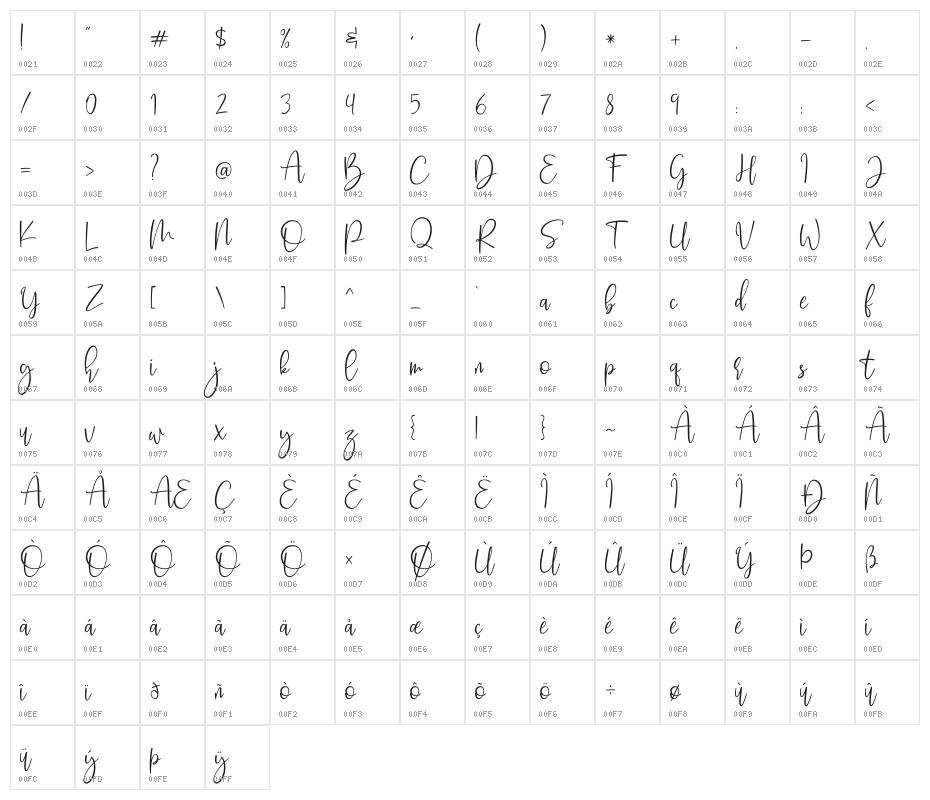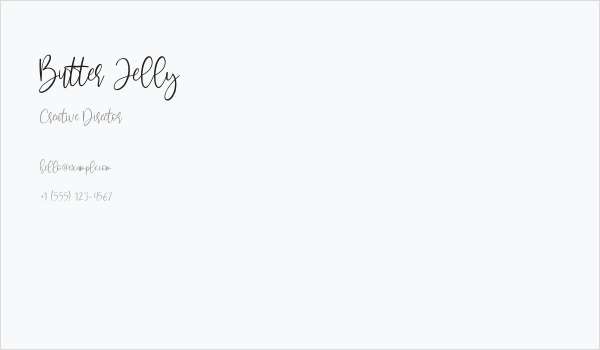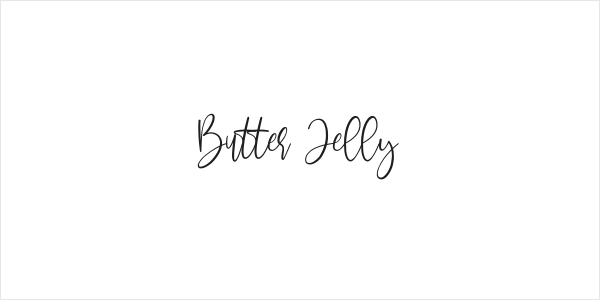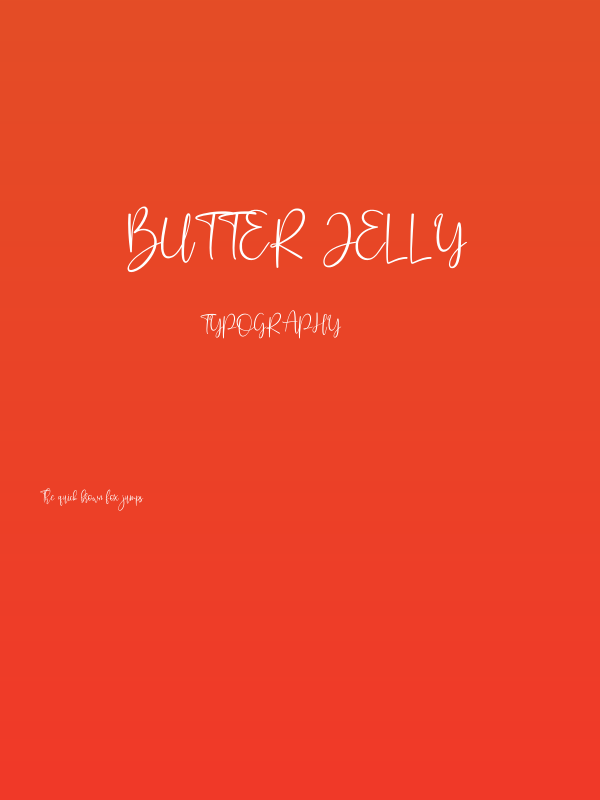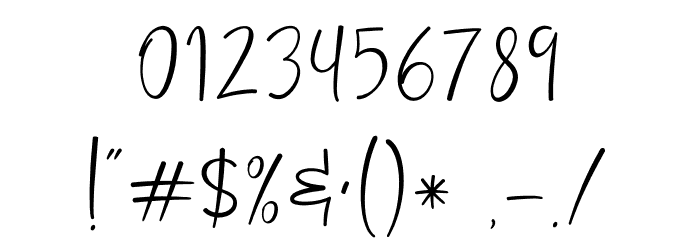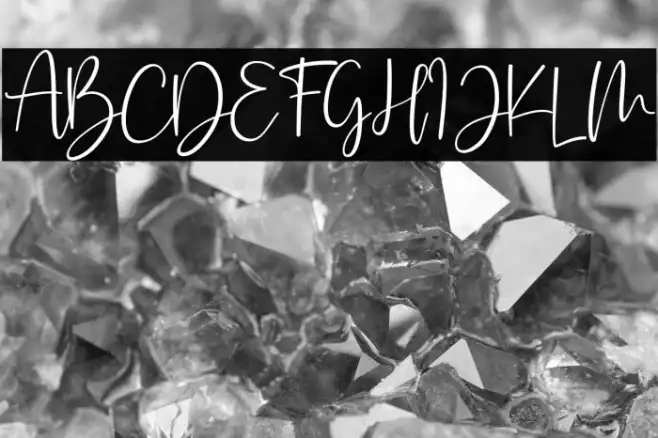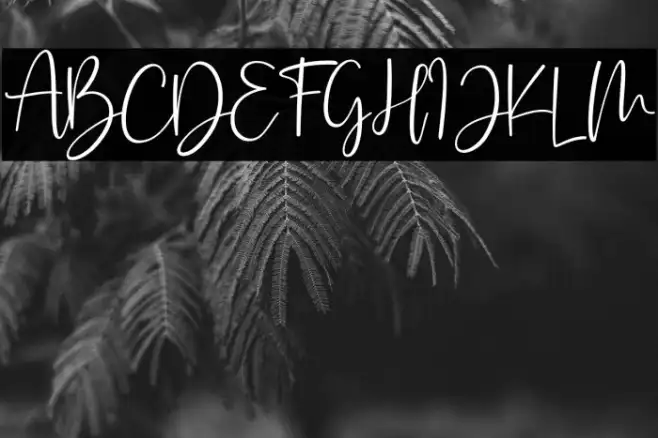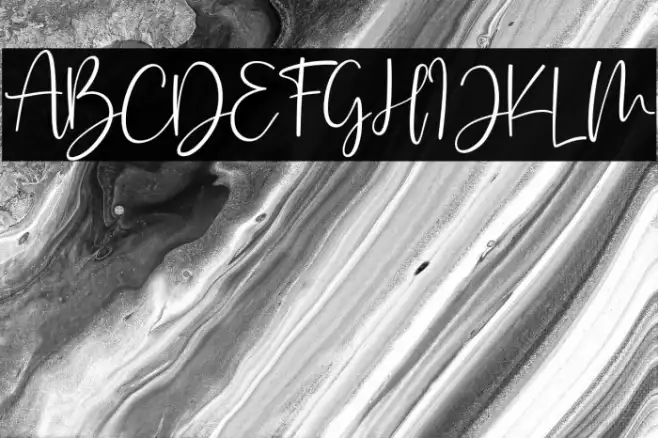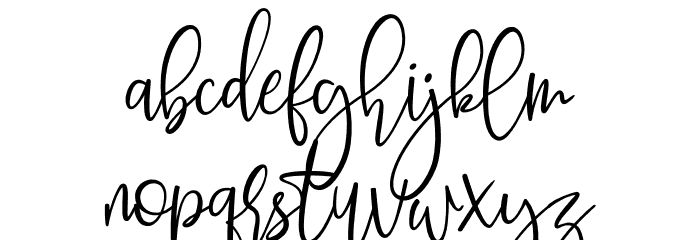
Butter Jelly Font
Butter Jelly Description
This font features a playful and flowing handwritten style, characterized by its smooth, continuous strokes and elegant curves. The uppercase letters are tall and slightly narrow, with a whimsical flair that adds a touch of personality. The lowercase letters maintain a consistent flow, with some letters extending below the baseline, enhancing its casual and friendly appearance. The numerals are clear and legible, matching the overall style with their rounded forms. Special characters are creatively designed, maintaining the font's cohesive look. This font exudes a sense of warmth and approachability, making it ideal for projects that require a personal touch.
| Proposed Projects | Ideal for greeting cards, invitations, personal branding, and social media graphics. |